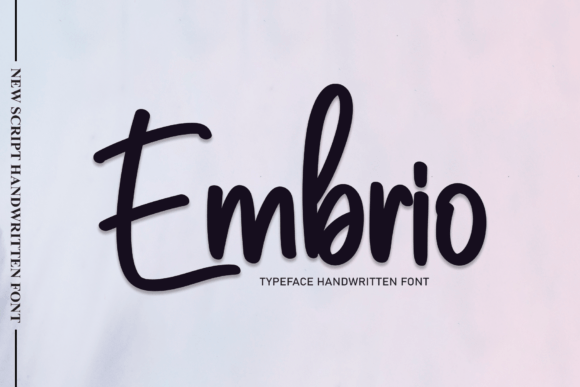
Embark on a scribbled adventure with Embrio, a script font that dances and sways with a whimsical charm. Its playful strokes and spontaneous nature make it the perfect partner for your creative pursuits. Whether you're crafting heartfelt messages, designing whimsical logos, or adding a personal touch to your digital creations, Embrio will captivate your audience with its undeniable allure.
Imagine your words taking on a life of their own, flowing effortlessly across the page with Embrio's enchanting characters. This font is a breath of fresh air, adding a touch of whimsy and delight to any project. Its versatile nature allows it to seamlessly blend with various design styles, from classic and elegant to modern and edgy.
With Embrio, you'll have the power to transform ordinary text into captivating works of art. Its organic and charismatic style will draw your audience in, creating a lasting impression that lingers in the memory. Whether you're a seasoned designer or just starting your creative journey, Embrio is the perfect font to unleash your imagination and let your creativity soar.
So why settle for ordinary fonts when you can elevate your designs with Embrio? Its enchanting aura and undeniable charm will elevate your projects to new heights. Embrace the magic of hand-lettered beauty and let Embrio be your guide into a world of enchanting typography.